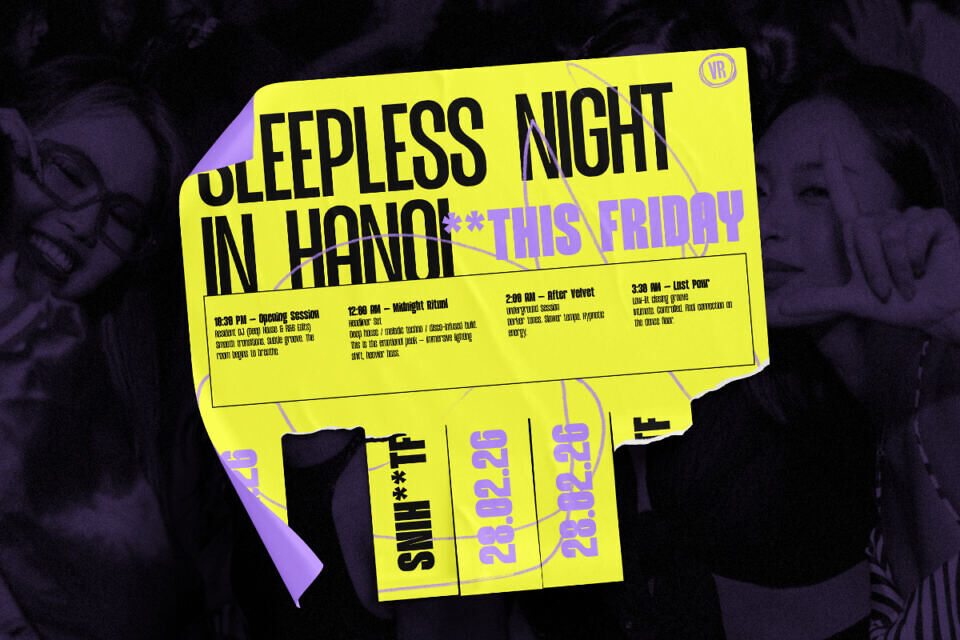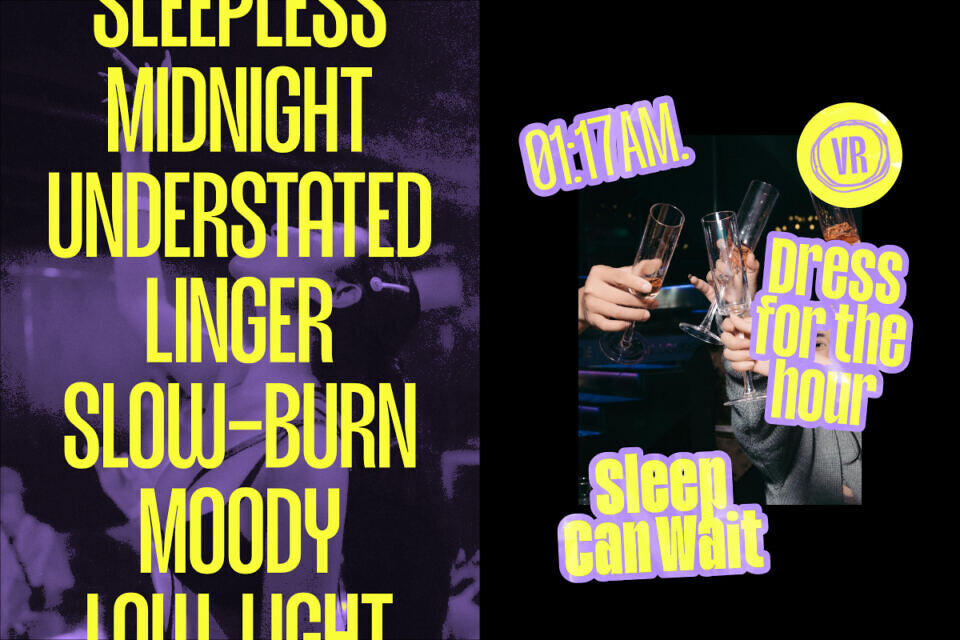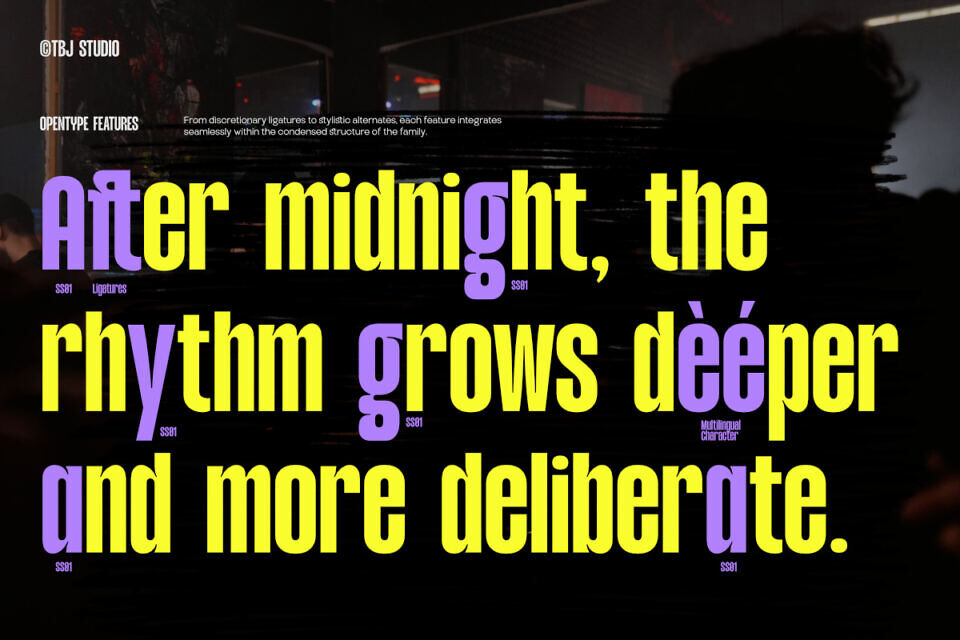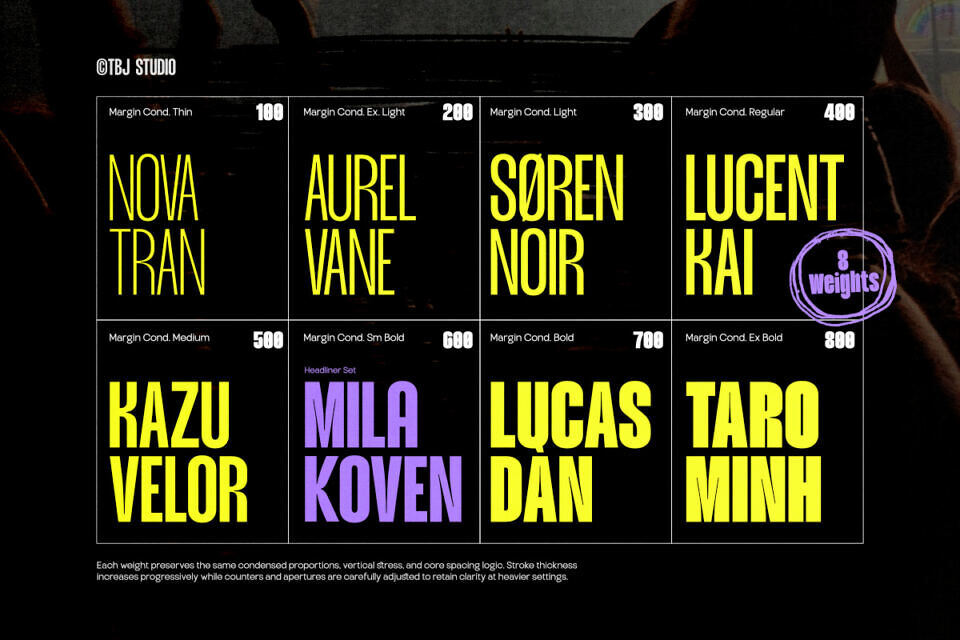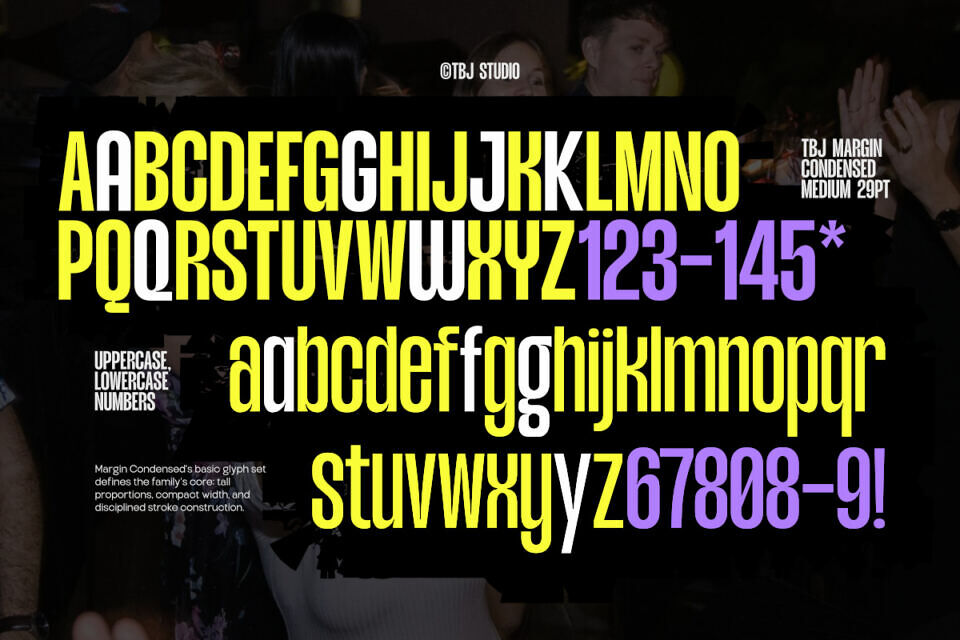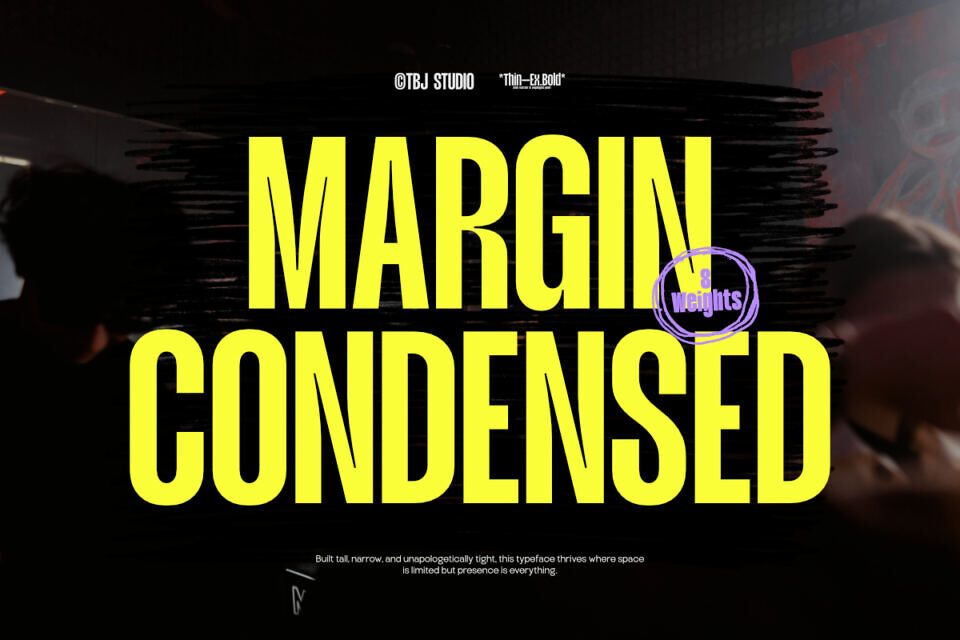
TBJ Margin Font Family
Tbj Margin Font Family
TBJ Margin Condensed is a strong bold condensed sans serif typeface designed to deliver maximum impact in minimal horizontal space. Built with tall proportions, tight spacing, and confident stroke weight, it creates a powerful vertical presence that stands out across headlines and branding systems.
The full family includes 8 weights, offering a range of design possibilities. Its condensed form boosts readability in tight spaces, while its bold style grabs attention. Suitable for corporate branding, advertising, and editorial layouts, this font combines modern clarity with strong energy.